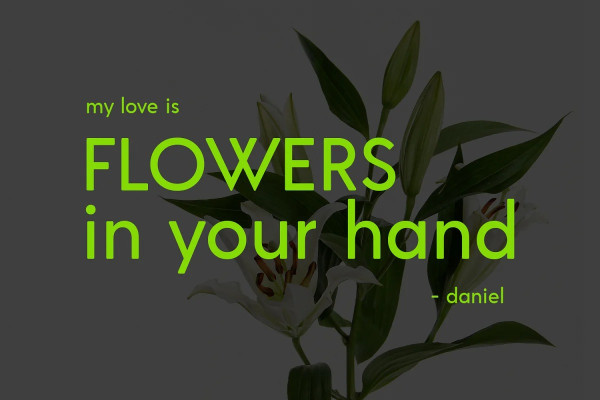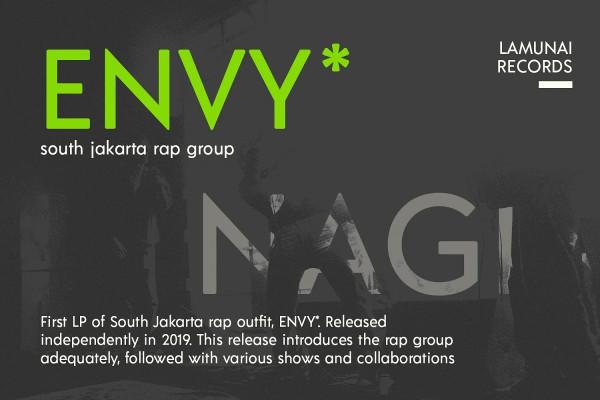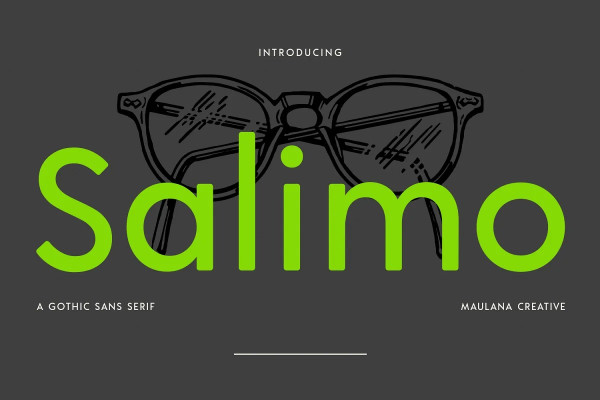
Salimo Font
Salimo Font is a modern gothic sans display font. Regular stroke, fun character with a bit of ligatures and alternates. To give you an extra creative work. Salimo font support multilingual more than 100+ language. This font is good for logo design, Social media, Movie Titles, Books Titles, a short text even a long text letter and good for your secondary text font with script or serif. Make a stunning work with Salimofont.